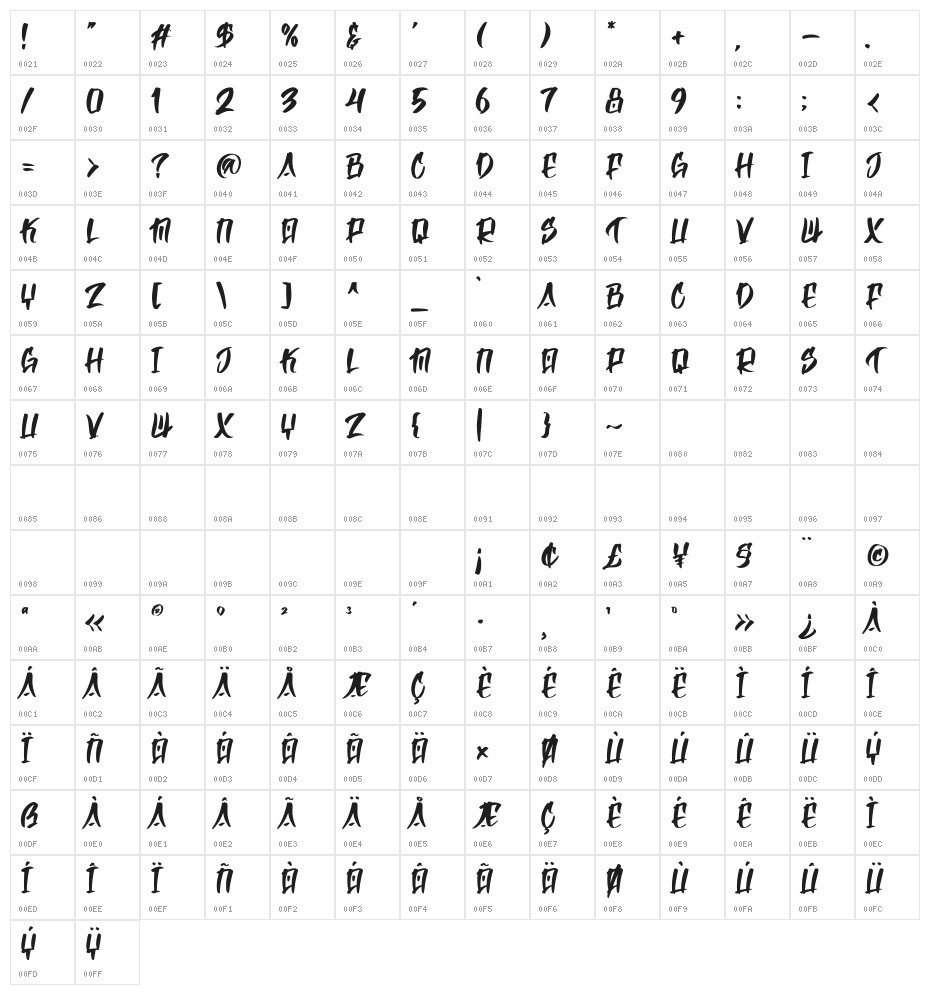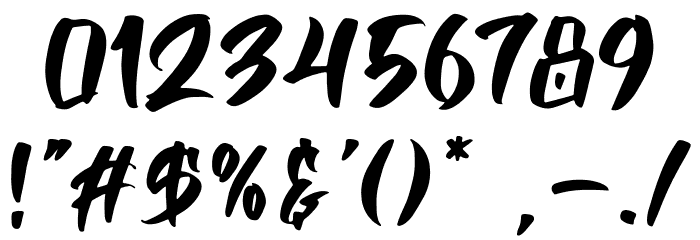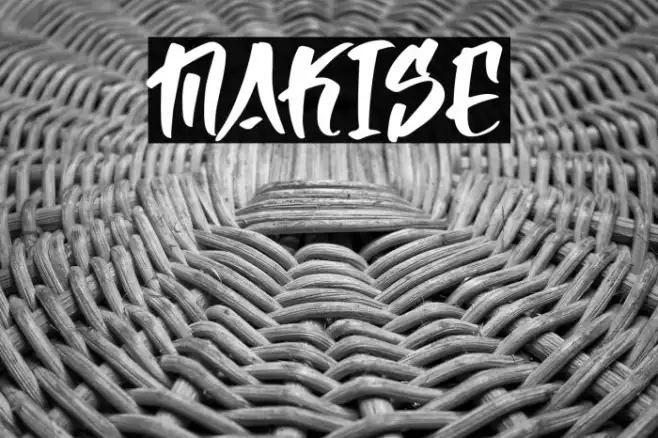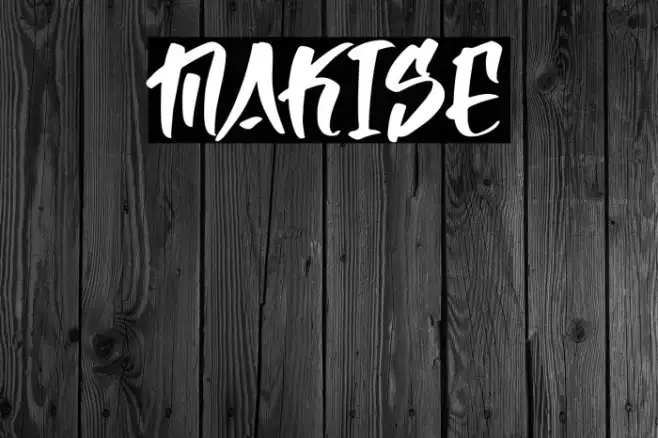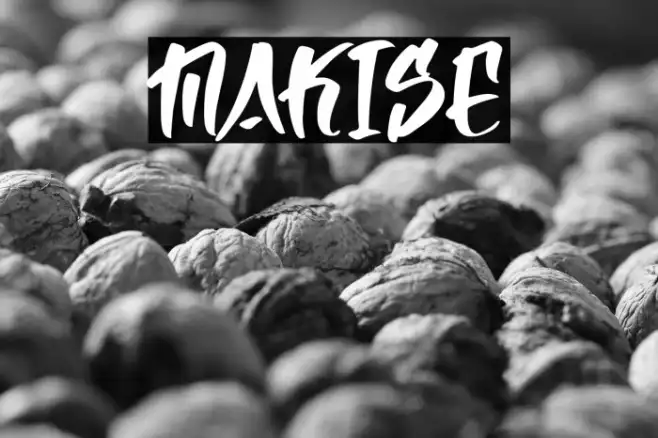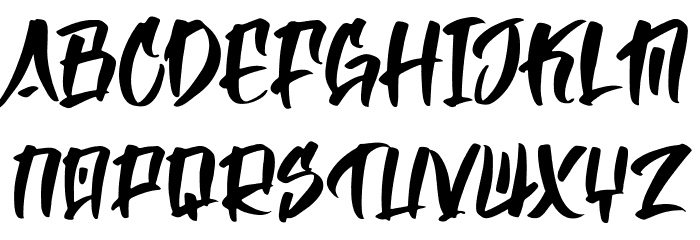
Makise Font
Makise Description
This font features a bold and dynamic script style with a strong presence. The characters are designed with a brush-like appearance, giving them an energetic and expressive feel. The strokes are thick and consistent, creating a sense of movement and fluidity. The uppercase and lowercase letters maintain a cohesive style, while the numbers and special characters complement the overall aesthetic. The font's design is suitable for making a statement, with its eye-catching and artistic flair.